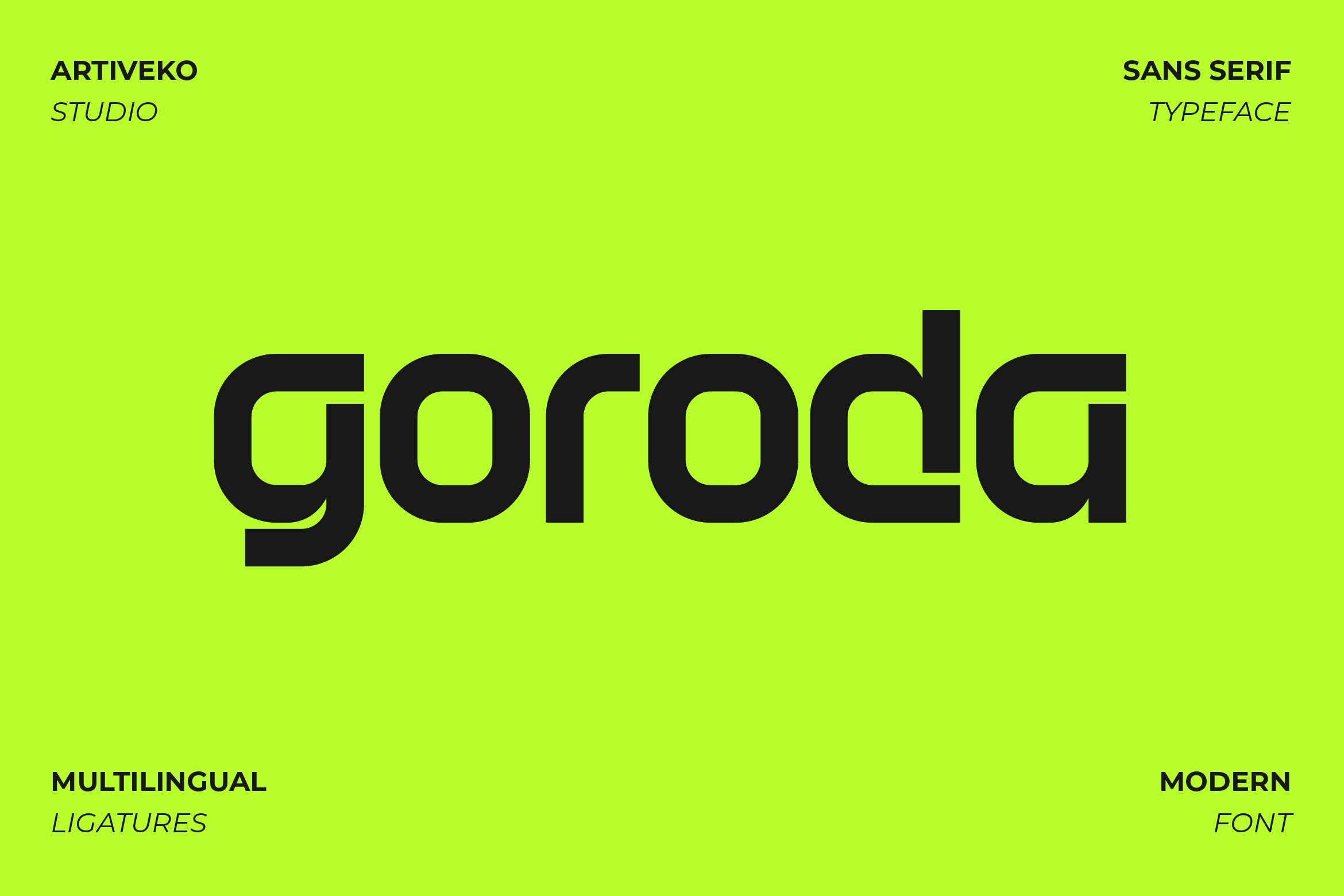
- Goroda Creative Logo Font
Goroda is a sleek sans serif font that combines modern minimalism with timeless elegance. Featuring smooth curves, geometric balance, and refined proportions, Goroda is designed to deliver clarity and sophistication across a wide range of creative projects. From luxury branding and professional logos to editorial layouts, website headers, and packaging, Goroda ensures a polished and stylish aesthetic.
Its versatile structure allows it to shine in both bold headlines and refined body text, making it suitable for industries such as fashion, lifestyle, tech, and creative agencies. With its subtle details and clean construction, Goroda adds a touch of exclusivity and professionalism to any design.
The font includes uppercase and lowercase letters, numerals, punctuation, multilingual support, and stylistic alternates for enhanced flexibility and creativity.
Elevate your design work with Goroda — the modern sans serif font that blends elegance, clarity, and contemporary sophistication.